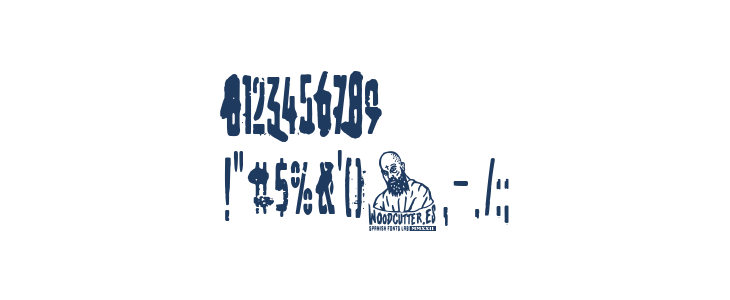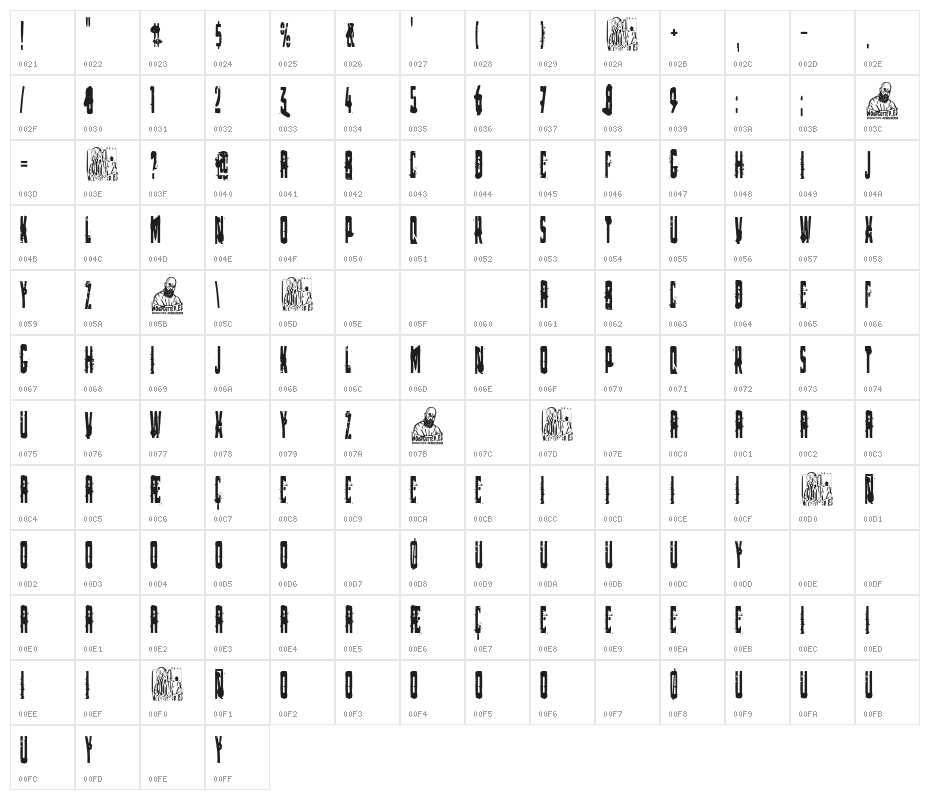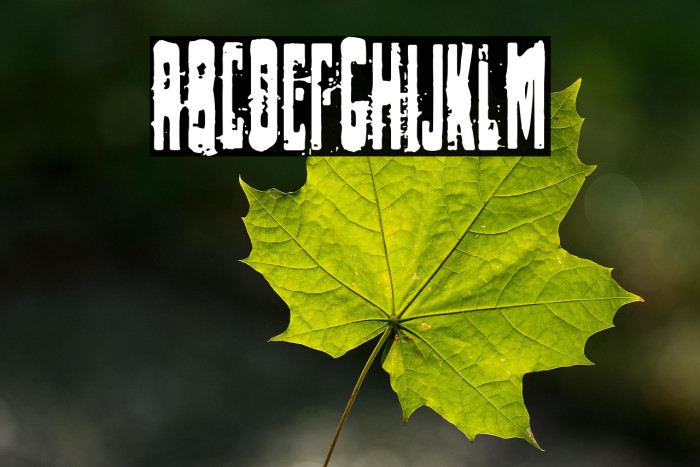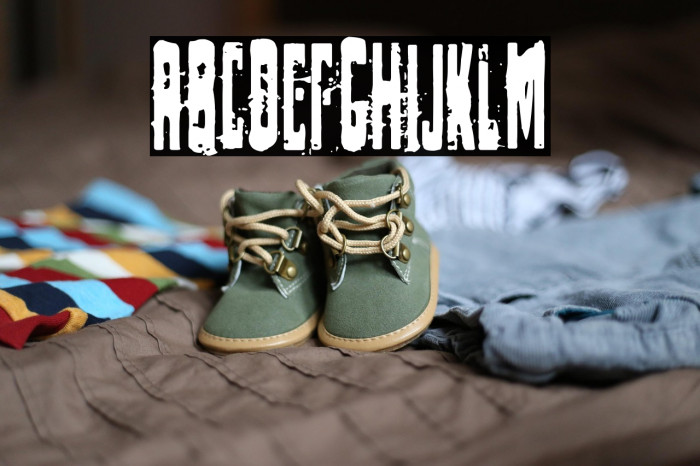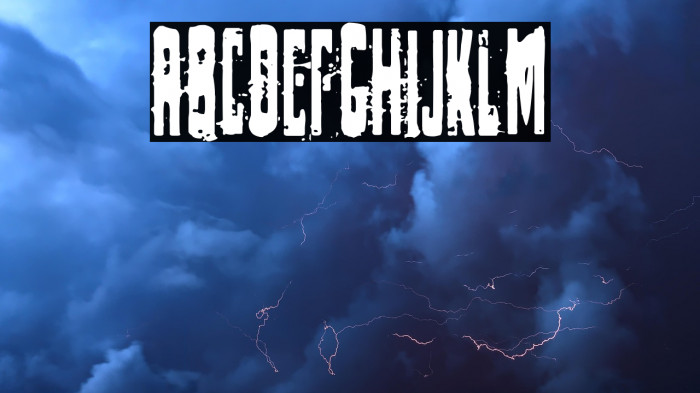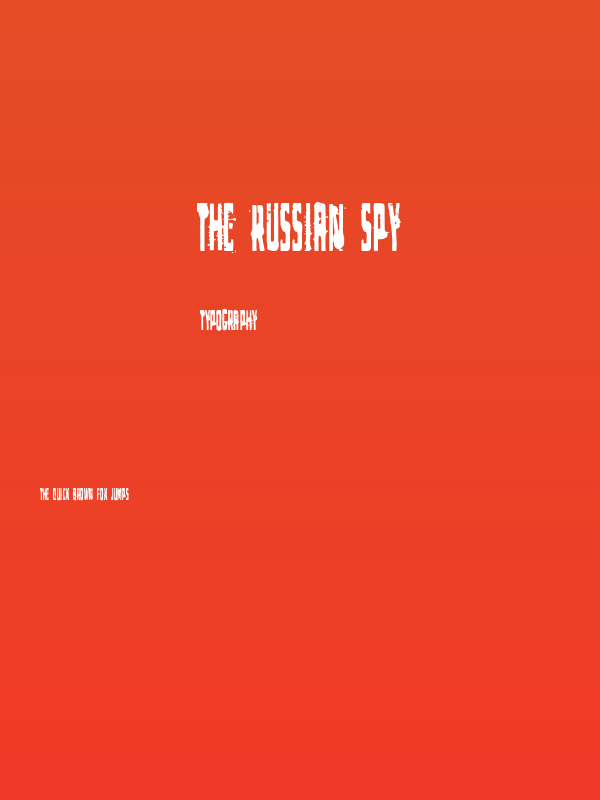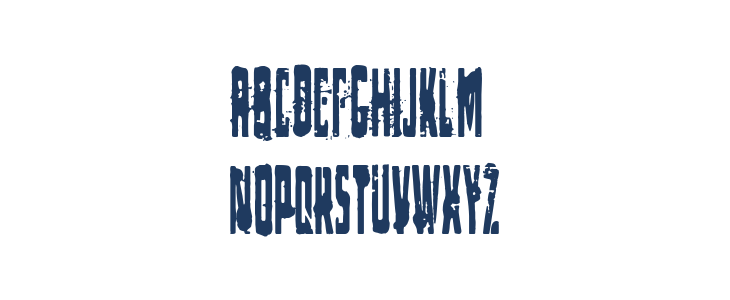
The Russian Spy Font
The Russian Spy Description
This font features a distressed, grunge style with a bold and impactful appearance. The characters are tall and narrow, with uneven edges that give a worn and rugged look. The uppercase and lowercase letters maintain a consistent height, enhancing the font's uniformity. Numbers and special characters follow the same distressed aesthetic, making them suitable for designs that require a raw, edgy feel. The font's unique texture makes it ideal for projects that aim to convey a sense of rebellion or urban grit.
| Overall Style | Grunge, Urban |
| Proposed Projects | Ideal for posters, album covers, streetwear branding, and any design needing a gritty, rebellious vibe. |